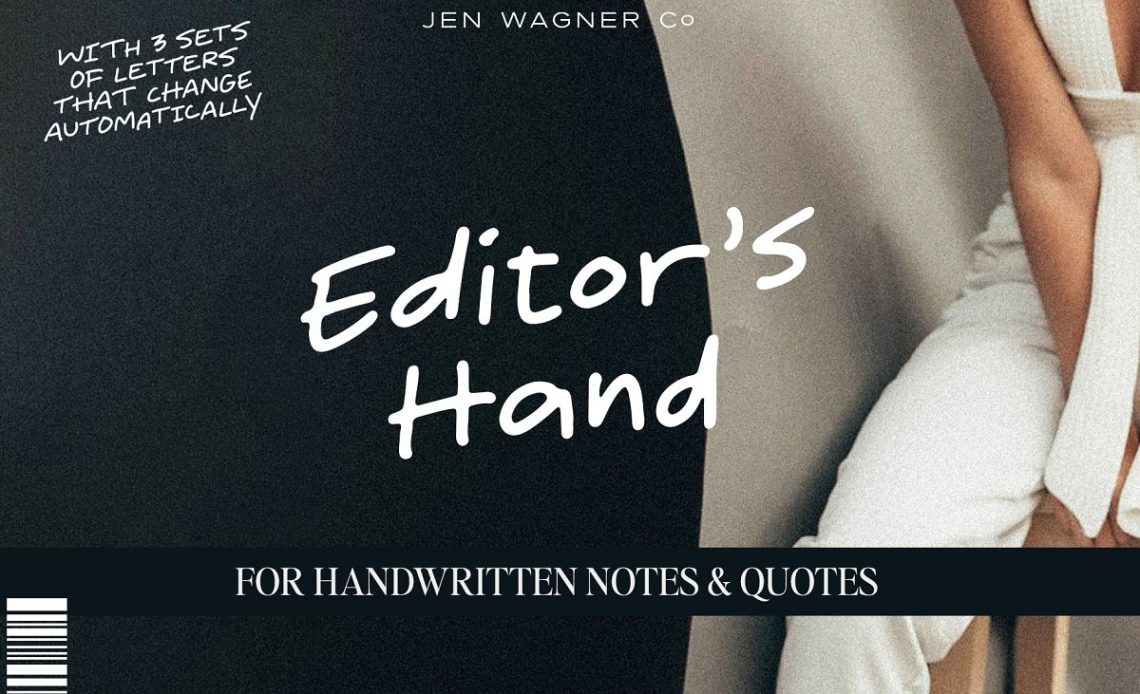
Introducing Editor's Hand: Notes & Quotes Font, the perfect addition to any designer's toolkit. Created by Jen Wagner, this font is the ultimate choice for those looking to elevate their designs with a hand-written touch. Editor's Hand is a Cricut Best Font For Writing and is designed to complement the Editor's Note serif font, which is perfect for creating a magazine feel on any project.
One of the best features of Editor's Hand is its versatility. It includes uppercase letters, numbers, and extended punctuation, making it suitable for a wide range of design projects. Additionally, it comes with three sets of letters and two sets of numbers that automatically switch, ensuring that there are no visible letter patterns in your designs. This feature works in most desktop programs, including Adobe and Microsoft, so you can seamlessly integrate Editor's Hand into your existing workflow.
Another great aspect of Editor's Hand is its non-English support, catering to the needs of international designers. So, whether you're creating handwritten notes, quotes, logos, or just looking to add a unique touch to your designs, Editor's Hand is the perfect choice.
With its captivating design and unique features, Editor's Hand is a must-have for anyone looking to take their design projects to the next level. Try it out for yourself and see the difference it can make to your work. Don't forget to pair it with Editor's Note to create the ultimate magazine feel in your designs.